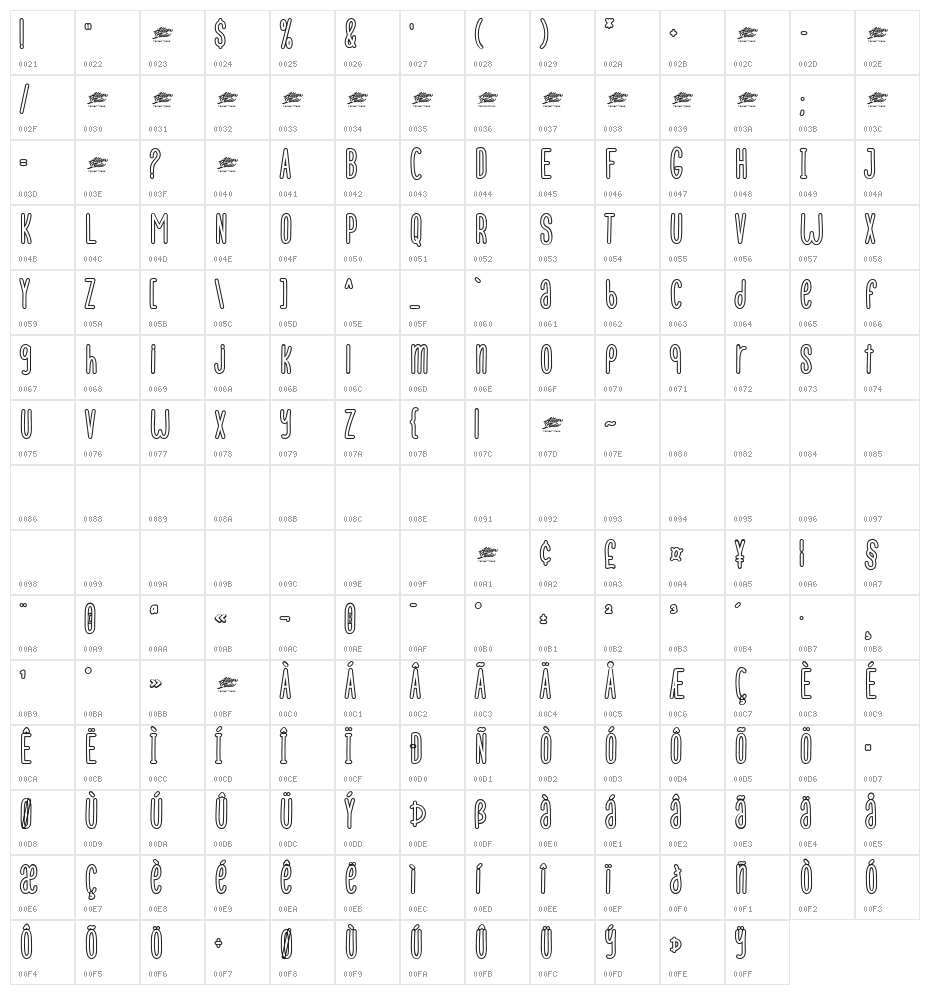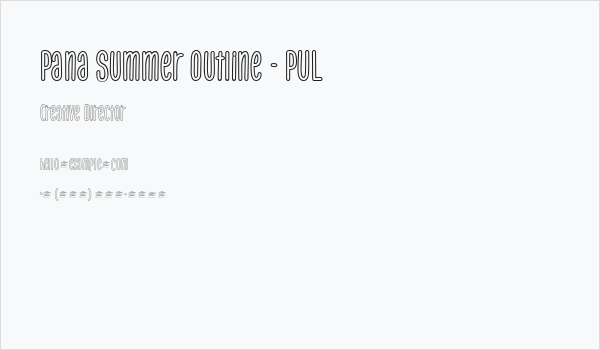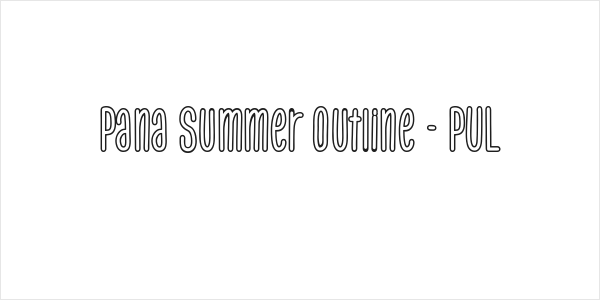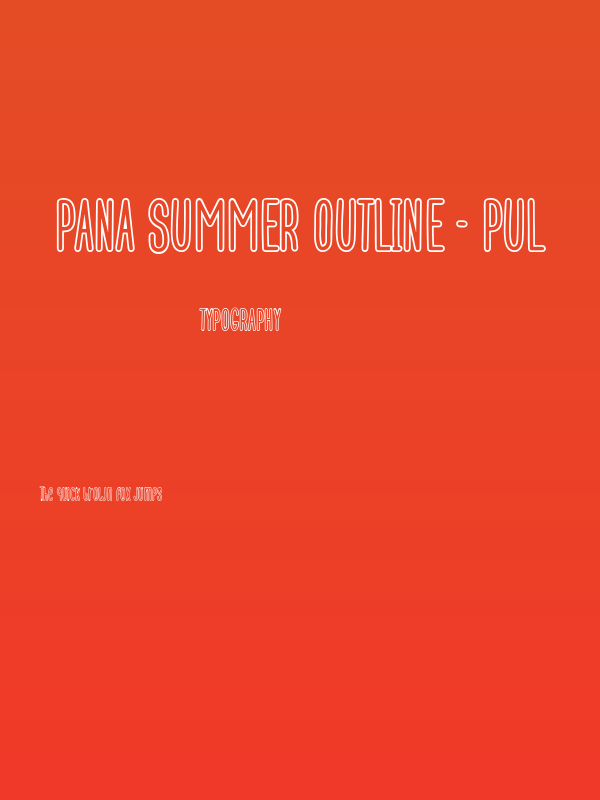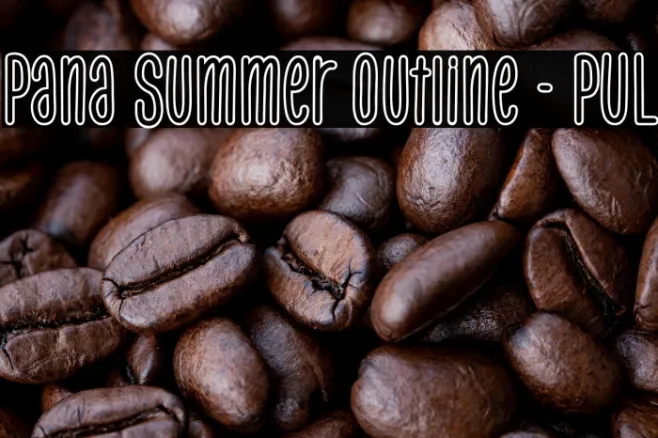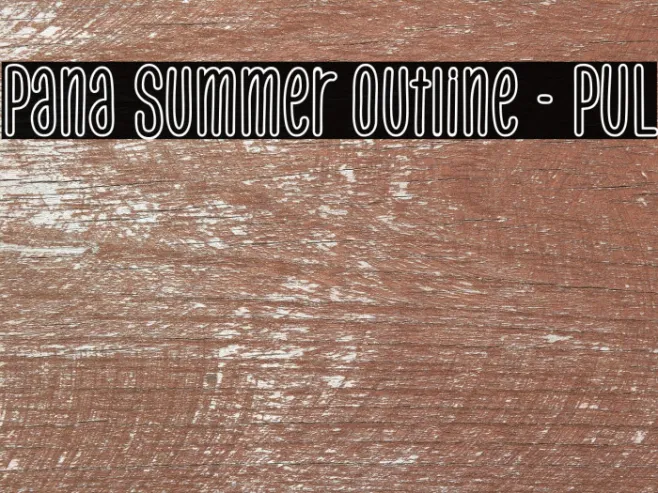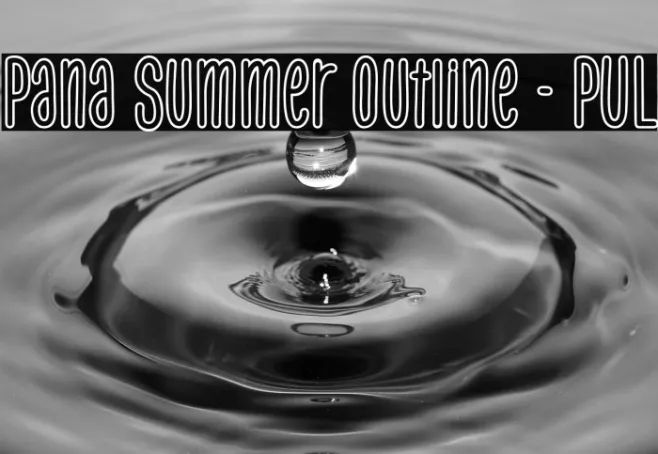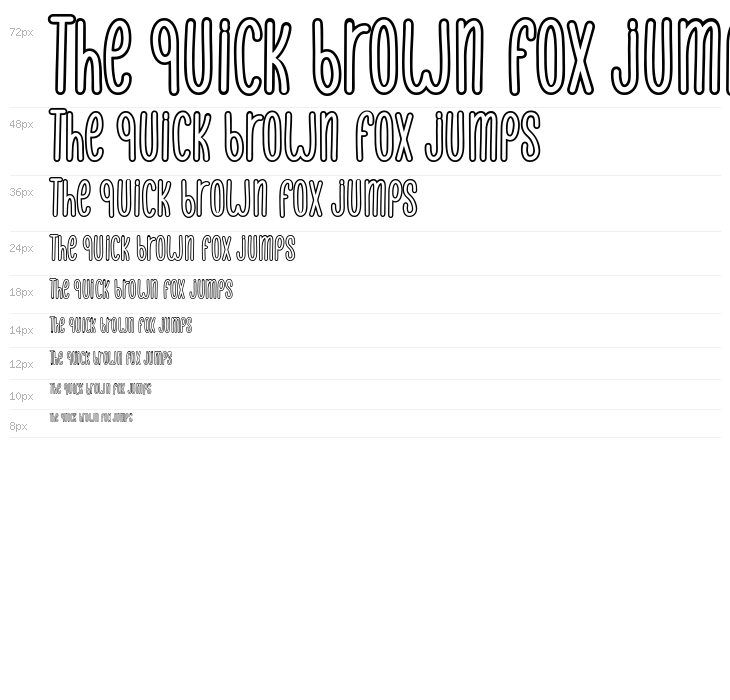
Pana Summer Outline - PUL Font
Pana Summer Outline - PUL Description
This font features a playful and modern outline style, characterized by its hollow, tubular letterforms. The uppercase and lowercase letters maintain a consistent width, creating a cohesive and uniform appearance. The rounded edges and smooth curves give it a friendly and approachable feel, making it ideal for casual and fun designs. The font includes a full set of uppercase and lowercase letters, numbers, and a selection of special characters, ensuring versatility in various design contexts. Its outline nature allows for creative layering and color usage, enhancing its visual appeal.
| Proposed Projects | Ideal for summer-themed graphics, children's book covers, playful branding, and creative posters. |